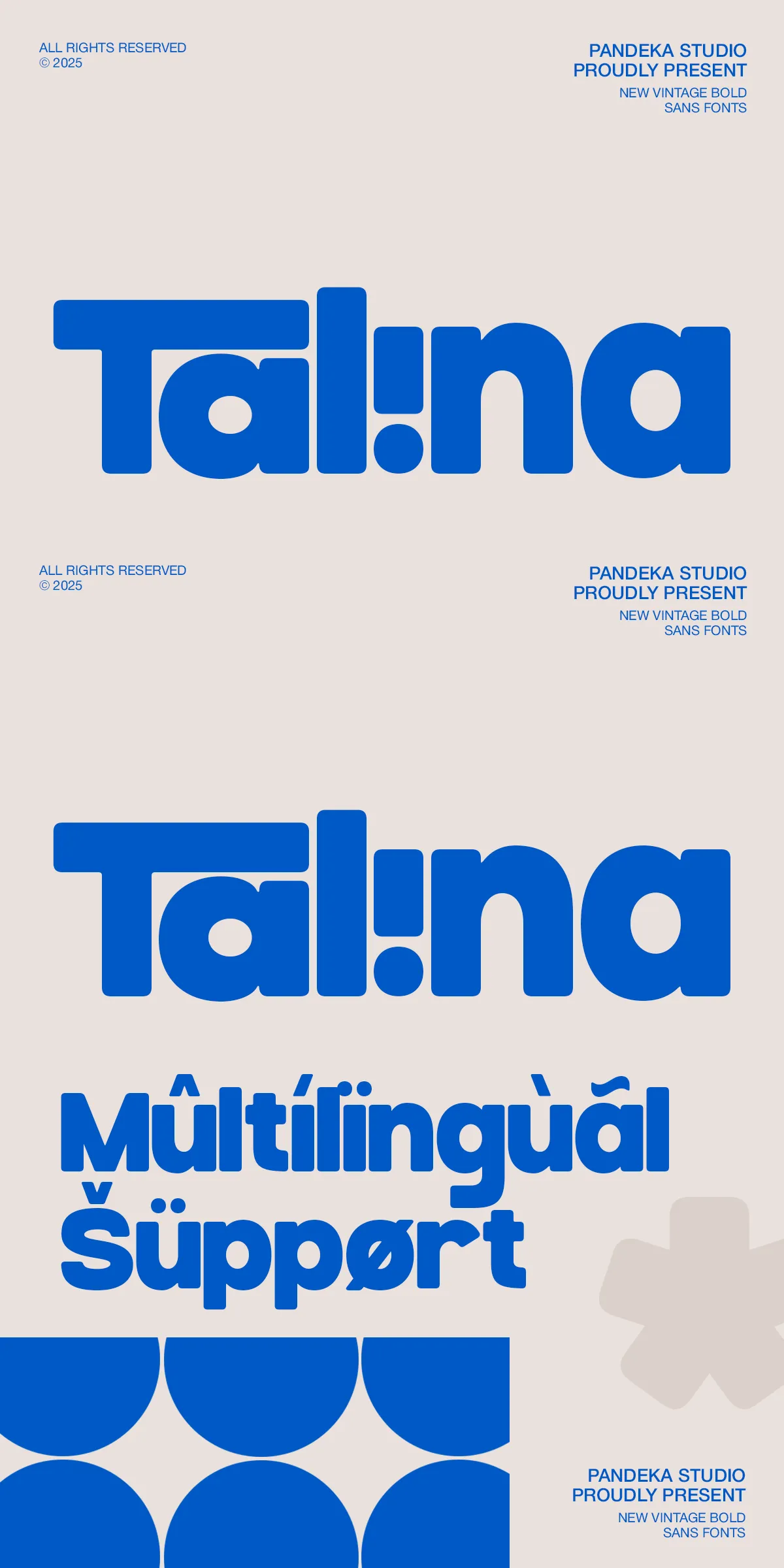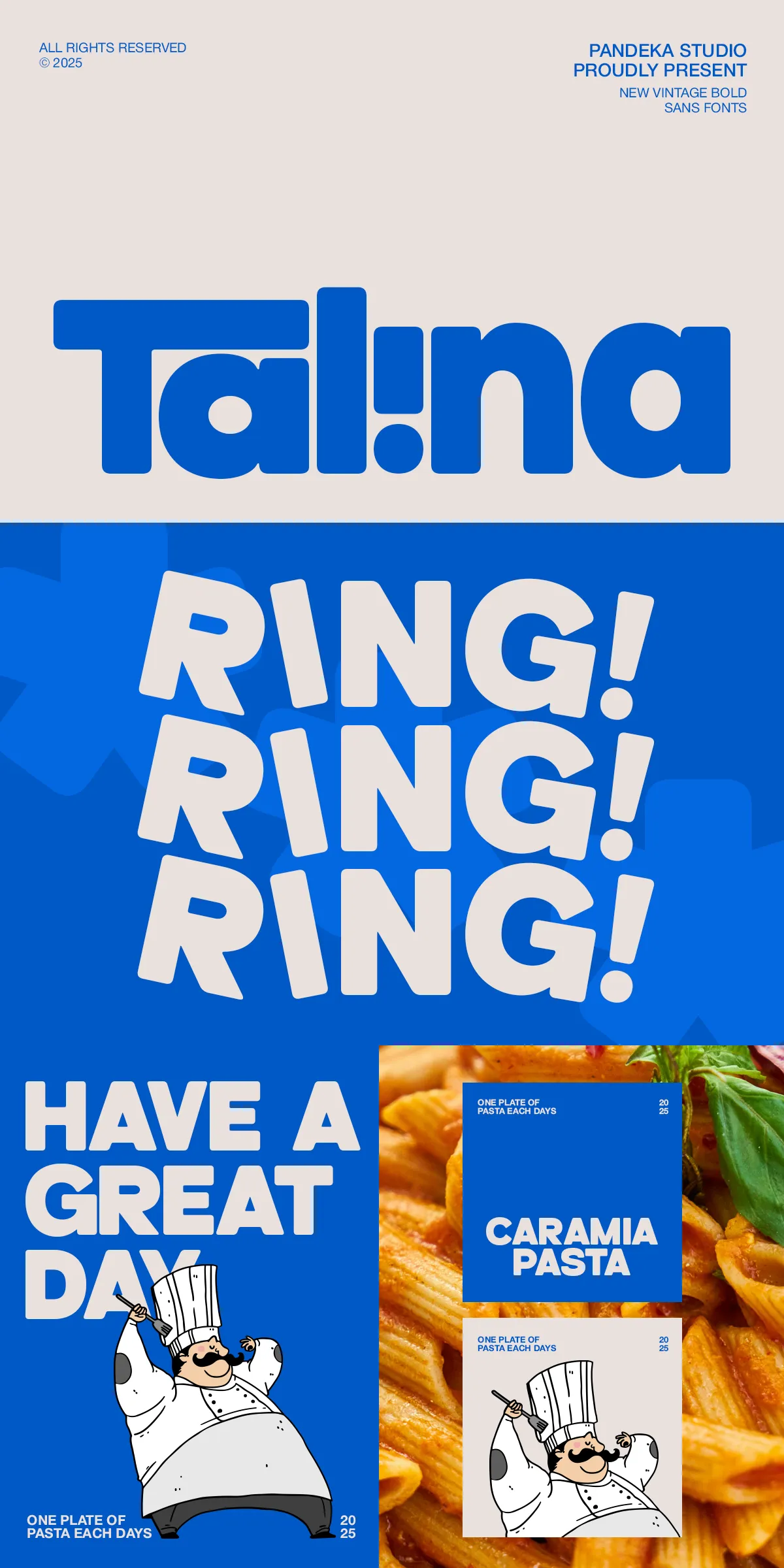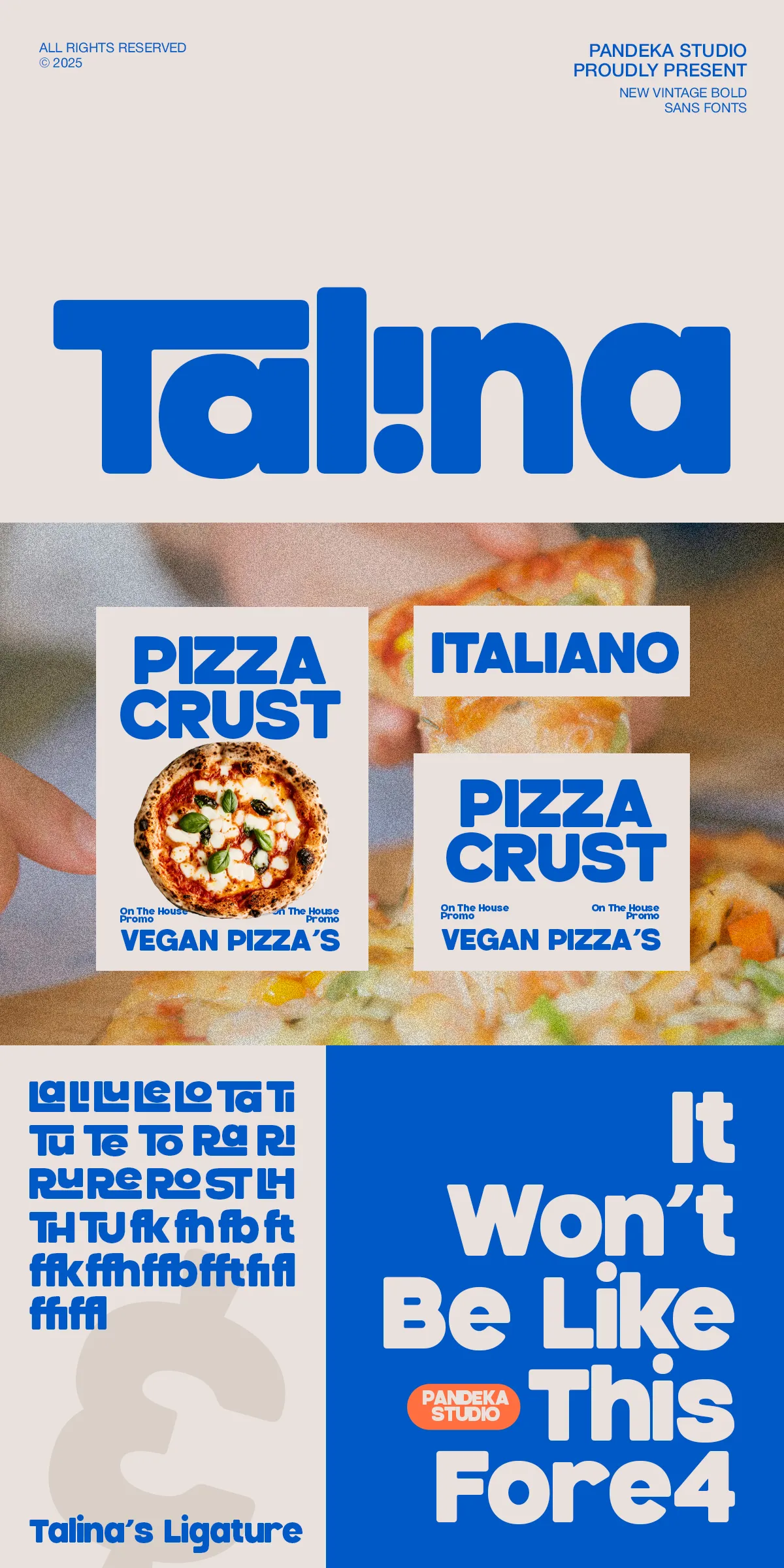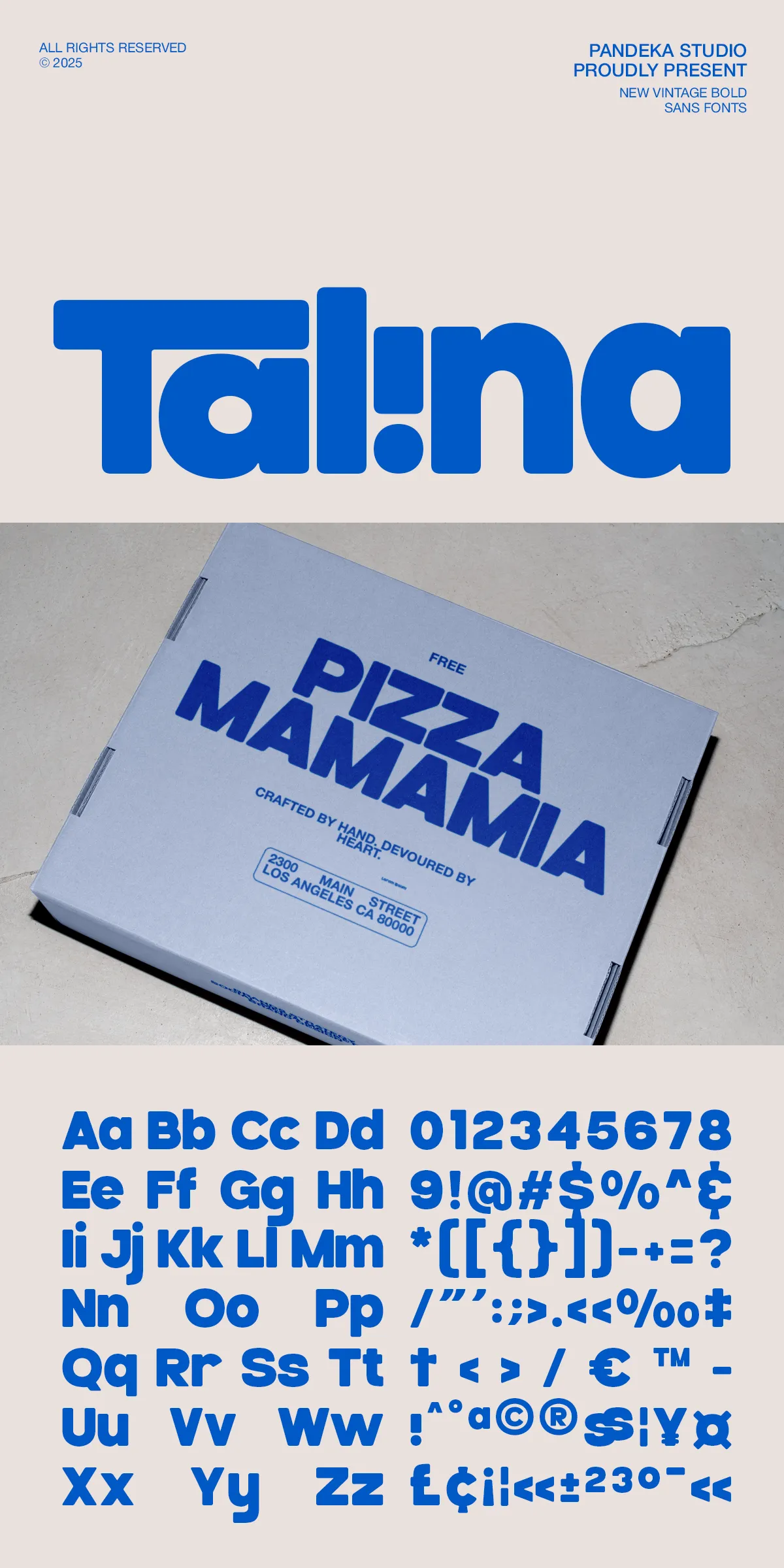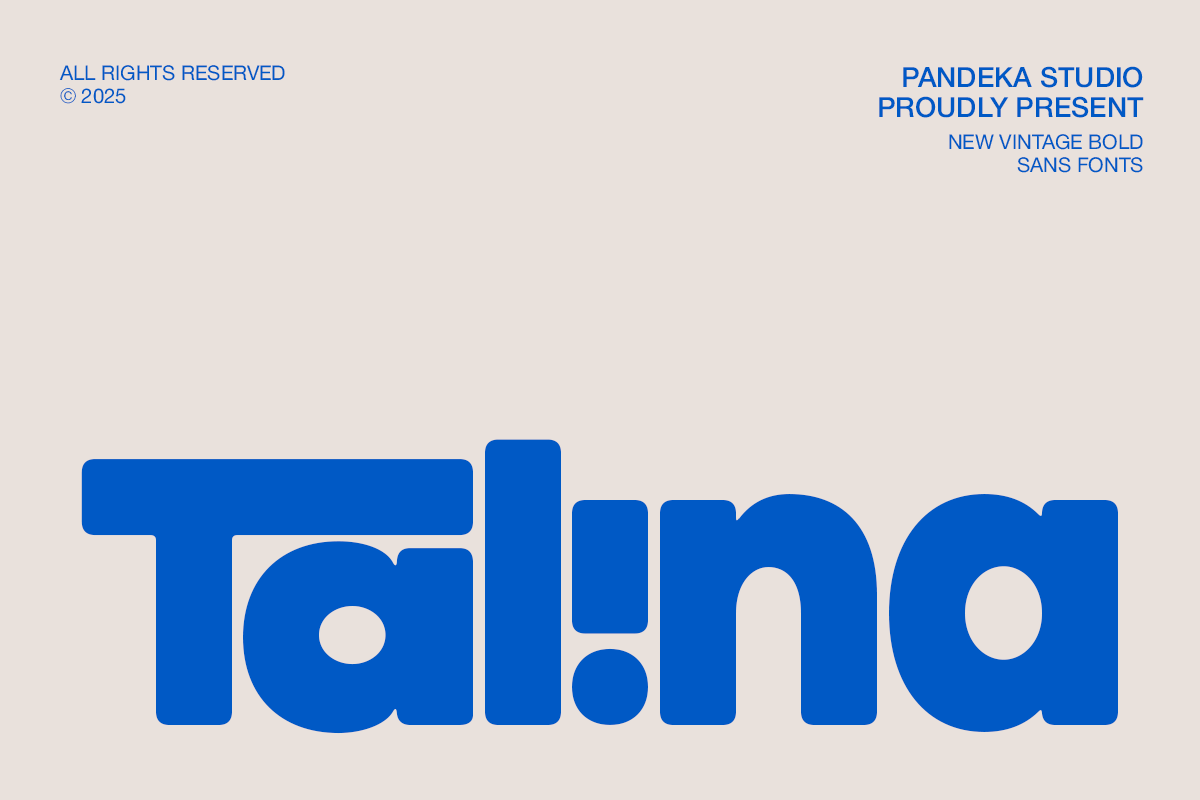
Meet Talina — a bold, rounded sans-serif typeface engineered for impact, charm, and instant recognition. With its friendly curves, confident structure, and irresistibly bubbly character, Talina doesn’t just stand out — it *invites* attention. Whether you’re designing a children’s book cover, crafting an eye-catching snack packaging label, or launching a viral social media campaign, Talina brings energy, warmth, and visual rhythm to every word you set.
Why Talina Shines in High-Impact Design
Designed with both expressiveness and readability in mind, Talina strikes the perfect balance between fun and function. Its heavy, geometric curves deliver visual weight without sacrificing clarity. The consistent rhythm of the letterforms creates a polished, professional feel — even when the mood is playful. This makes it ideal for environments where boldness and approachability must coexist.
From toy brands to juice boxes, from kindergarten classroom posters to influencer product drops, Talina adapts seamlessly. It thrives in high-contrast layouts, where it commands space without overwhelming the message. Its clean structure ensures legibility even at small sizes, while its rounded edges soften the tone — making it perfect for brands that want to feel human, not harsh.
Smart Features Built for Real-World Creators
Outsized personality shouldn’t come at the cost of utility. Talina comes packed with practical tools that make your workflow faster and your designs more dynamic:
- Fun and expressive ligatures — automatically connect common letter combinations (like ‘Tal’ or ‘ina’) to create flowing, hand-crafted connections that feel intentional, not random.
- Full multilingual support — includes Latin, Cyrillic, and Greek character sets, so your brand can reach global audiences without switching typefaces.
- Complete punctuation & numerals — every symbol and number is carefully crafted to match the font’s personality, ensuring consistency across all content.
- Multiple weights available — from light to extra-bold, giving you control over hierarchy and emphasis in any layout.
These features aren’t just extras — they’re what turn a good font into a design powerhouse.
Perfect for Brands That Want to Be Remembered
Talina isn’t just a font. It’s a brand voice in visual form. Its playful yet confident tone resonates deeply with audiences who value authenticity, joy, and creativity.
Kids & Family Brands
From storybooks to nursery decor, Talina’s soft edges and joyful flow make it feel naturally suited to young audiences. Use it to design memorable logos, educational materials, or animated titles that delight children and parents alike.
Food & Beverage Packaging
Let Talina help your product stand out on the shelf. Its bold presence grabs attention, while its warmth invites curiosity. Perfect for organic snacks, craft drinks, pastries, or eco-friendly packaging where tone matters as much as taste.
Social Media & Digital Ads
Stop scrolling — Talina makes your message impossible to ignore. Use it for Instagram story graphics, Facebook ads, or TikTok thumbnails. Its high contrast and playful rhythm deliver maximum visibility in fast-moving digital feeds.
Bold Typographic Layouts
When you need a headline that owns the space — a poster, banner, or billboard — Talina delivers. Its consistent weight and rounded forms create harmony across complex layouts, while its standout shape ensures the message never gets lost.
What’s in the Talina Font Family?
Everything you need to turn your ideas into vibrant, memorable designs:
- Multiple font weights — Light, Regular, Medium, Bold, and Extra-Bold for full typographic flexibility.
- Full OpenType features — ligatures, alternates, fractions, and stylistic sets built in for instant customization.
- Comprehensive character set — supports 20+ languages, including special symbols for academic, scientific, and creative use.
Pro Design Tips to Make Talina Work Harder for You
- Pair with clean typography — use a minimalist serif or neutral sans for body text to let Talina shine as the hero.
- Use color gradients — Talina’s rounded forms look stunning when filled with vibrant gradients or pastel shades.
- Apply subtle shadows or outlines — enhance depth while keeping the playful spirit intact.
- Alternate letters selectively — vary tildes, hooks, or tails in headlines to add visual rhythm and prevent monotony.
Let Your Brand Speak with Smiles: Choose Talina
Talina isn’t just a font. It’s a mindset — bold enough to lead, friendly enough to connect, playful enough to inspire. It brings energy to your projects, warmth to your message, and memorability to your brand.